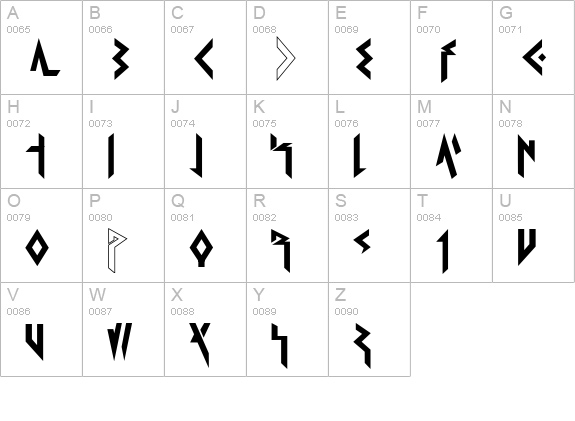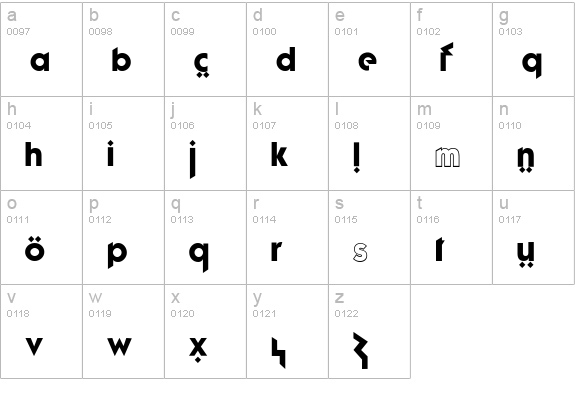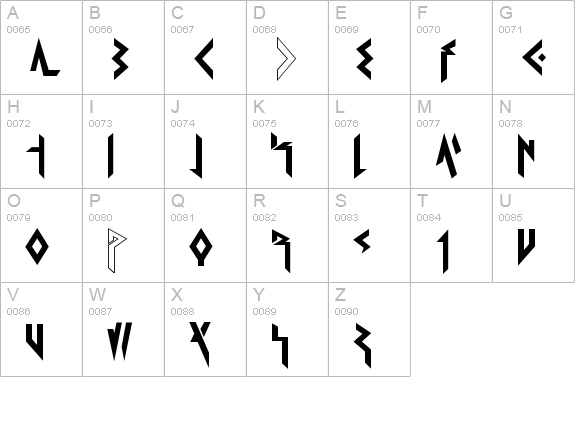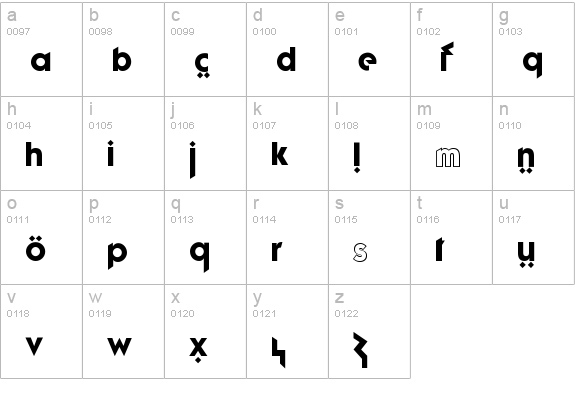
Fujita Ray (Demo) Font Details
Fujita Ray (Demo) font is a modern and stylish typeface that exudes sophistication and elegance. With its clean lines and sleek design, this font is perfect for a variety of design projects, from branding to editorial design. Its unique character shapes and balanced spacing make it stand out from the crowd. The best part about Fujita Ray (Demo) font is that it is completely free to download at FontsMarket.com. Whether you are a designer looking to add a fresh new font to your collection or a business owner in need of a professional typeface for your branding, this font is the perfect choice. Don't miss out on the opportunity to elevate your projects with this stunning and versatile font that is just a few clicks away for free.